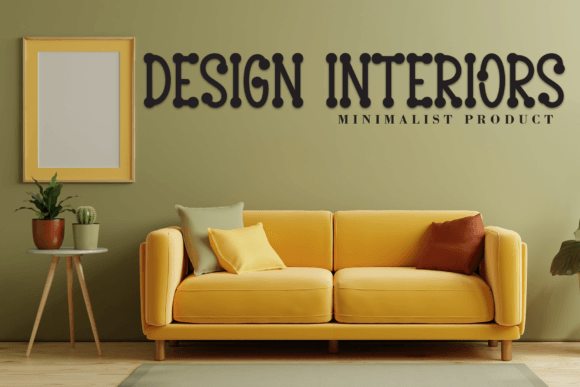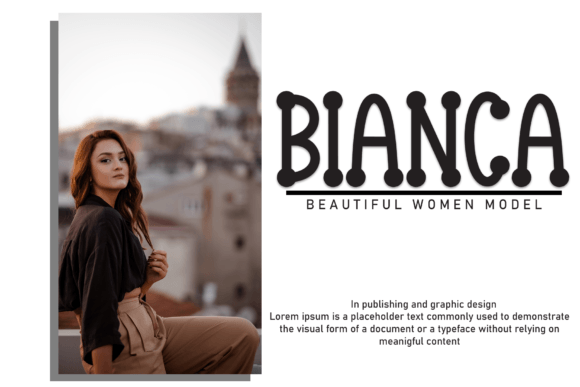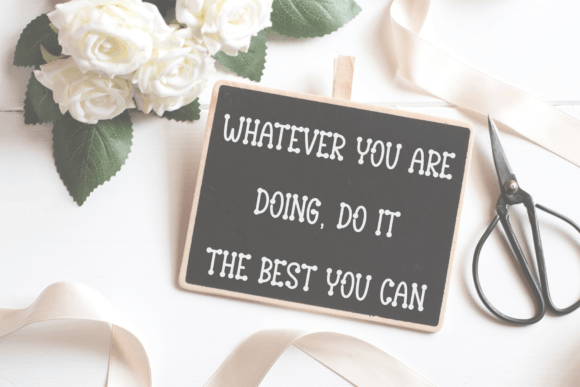
Introduction to Snowball Font
Who hasn’t been stuck on a creative project, searching for that perfect design element to bring it all together? For me, it was a beautiful wedding invitation design, and I just couldn’t seem to find the right font to make it pop. That’s when I stumbled upon the Snowball Font – a sweet and friendly handwritten display font that added just the right touch of whimsy to my design.
| 👤 Author | Strongkeng Old |
As a designer, I can attest to the value of having high-quality design resources like the Snowball Font at your fingertips. With a free download option, you can incorporate this charming font into your creative project with ease. Whether you’re working on a wedding invitation, a card, or any other design that needs a fun touch, the Snowball Font is an ideal choice.
One of the things that sets the Snowball Font apart is its transparent background, making it a versatile design resource that can be used in a variety of contexts. So, if you’re looking to add a little personality to your next design project, be sure to check out the Snowball Font – your creativity will thank you!
Key Features of Snowball Font
- High-quality design with a unique, playful style perfect for creative projects.
- Features a transparent background, allowing for easy layering and composition in creative projects.
- Comes in a range of sizes, from 12 to 72 points, making it versatile for various design applications.
- Designed at a high resolution of 300 DPI, ensuring crisp and clear typography in print and digital designs.
- Unique snowball-inspired design elements, adding a touch of whimsy and fun to any creative project.
Honest Review: Snowball Font
As a designer, I’m always on the lookout for high-quality fonts that can elevate my creative projects. The Snowball Font is a free download that I recently discovered, and I must say, it’s been a pleasant surprise.
Here are some things that work well with the Snowball Font:
- ✨ Unique and playful design: The font has a quirky, whimsical feel that’s perfect for projects that need a touch of personality.
- ✨ High-quality design: The font is well-crafted, with clear lines and smooth curves that make it a pleasure to work with.
- ✨ Transparent background: The font comes with a transparent background, making it easy to use in design projects where a clear background is necessary.
- ⚠️ Limited character set: The font only includes a limited set of characters, which may not be suitable for projects that require a wide range of symbols or languages.
- ⚠️ Not suitable for large-scale text: While the font is perfect for small-scale text, it may not be the best choice for large-scale text due to its playful design.
Overall, I’m impressed with the Snowball Font as a design resource. It’s perfect for small-scale text and adds a touch of personality to any project. While it may have some limitations, it’s a great choice for designers who want a unique and playful font without breaking the bank.
How to Use Snowball Font
Tips for Getting the Most Out of Snowball Font
To get the most out of the Snowball Font, consider using it in conjunction with other design elements. Experiment with different backgrounds, colors, and arrangements to create a unique visual identity. Don’t be afraid to think outside the box and try new things!
The Snowball Font is ideal for a variety of creative projects, including presentations, documents, and social media graphics. Use it to add a playful touch to your design, and to help convey your message in a visually engaging way.